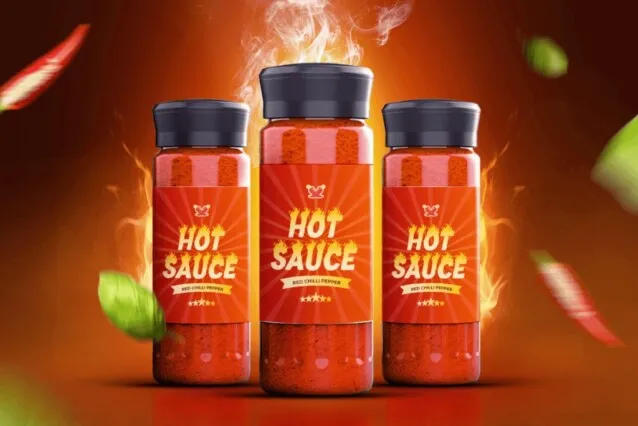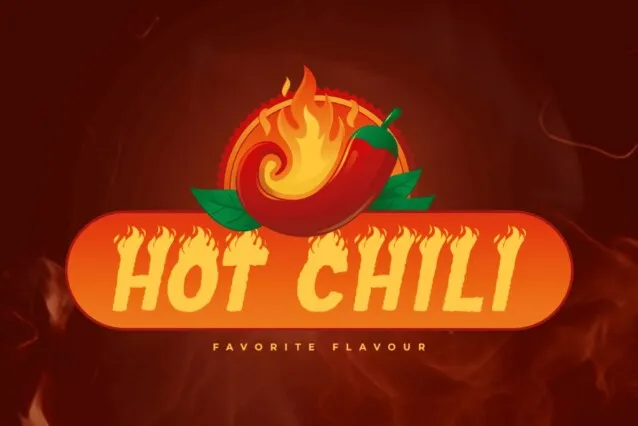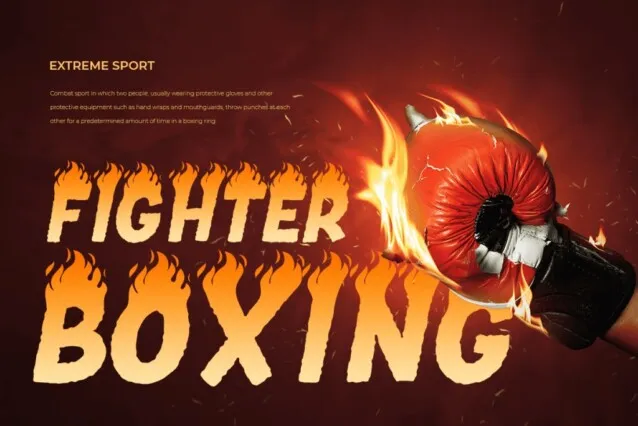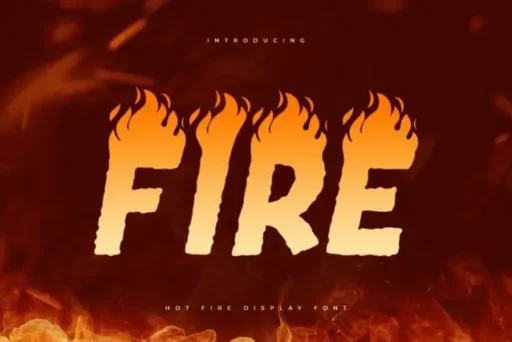
Fire Ball Font
Fire Ball is a sizzling display font that adds flames to any design. Its bold, fiery shapes work great for logos, branding, and wedding invites. You’ll also love it on social‑media posts, ads, packaging, and labels. Despite its dramatic look, Fire Ball stays clear and readable in every project.
Where Fire Ball Font works best
Fire Ball Font is built for size: event posters, hero headlines and billboard-style layouts.
High contrast display type like Fire Ball Font reads instantly in thumbnails and motion graphics.
What is Fire Ball Font good for?
Fire Ball Font is a Display Fonts typeface tagged Bold, Branding, Display, Display Fonts. It works well for headlines, logos, posters, social media graphics and branding projects that need a distinctive display fonts look.